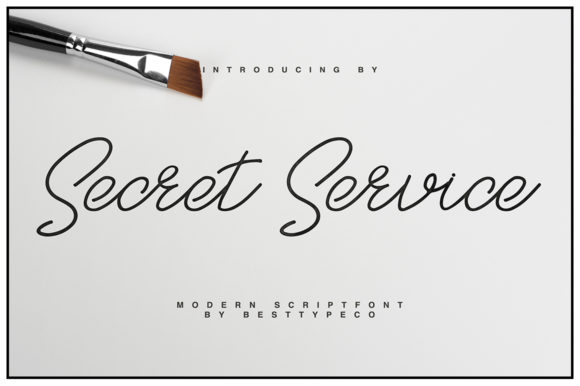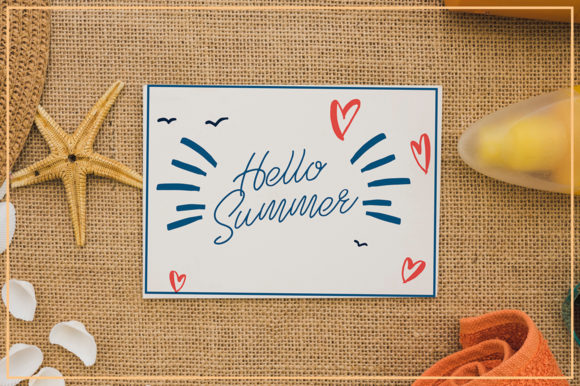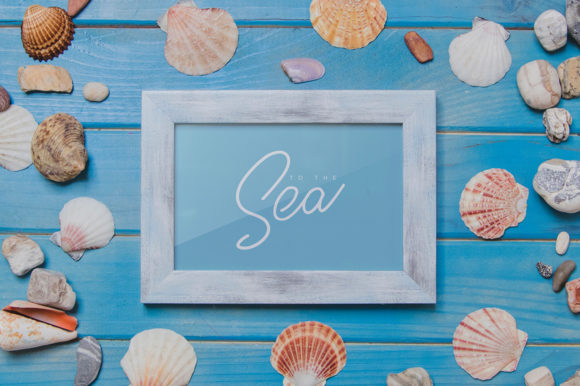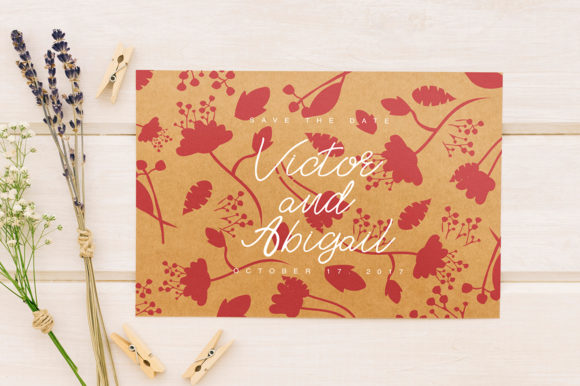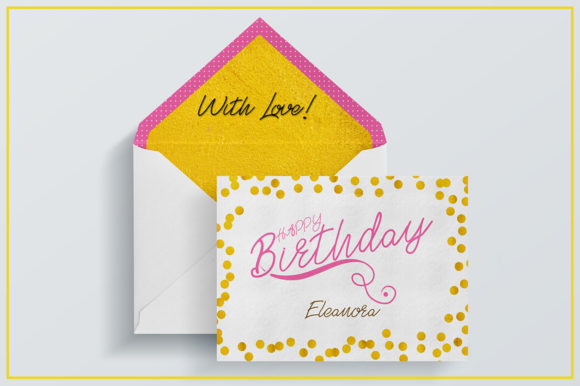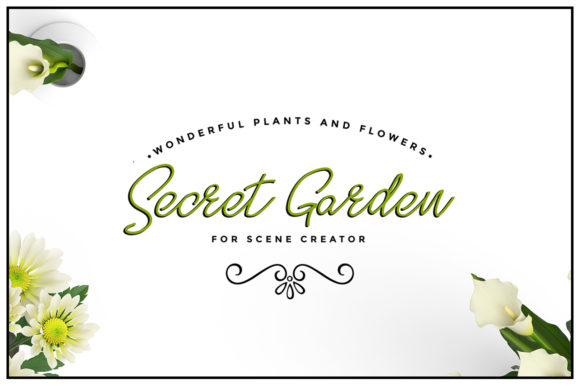
Secret Service Font
About Secret Service Font
Secret Service is a delicate and flowing handwritten font. Its distinct and well rounded letters make this font a masterpiece. Fall in love with its incredibly versatile style and use it to create spectacular designs!